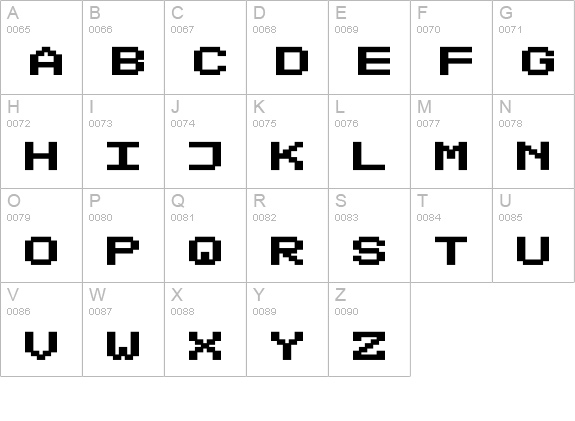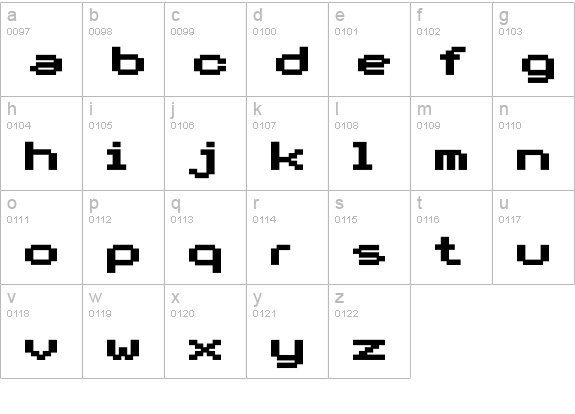
DS VDOTXT2 Font Details
DS VDOTXT2 font is a modern and sleek typeface that is perfect for adding a futuristic touch to your design projects. With its clean lines and geometric shapes, this font exudes a sense of technology and innovation. Whether you're creating posters, logos, or web graphics, DS VDOTXT2 is sure to make a bold statement. What's even better is that DS VDOTXT2 is completely free to download at FontsMarket.com. You can easily access this font and use it in your personal or commercial projects without any restrictions. Don't miss out on the opportunity to enhance your designs with this unique and eye-catching typeface. Download DS VDOTXT2 today and take your creativity to the next level!